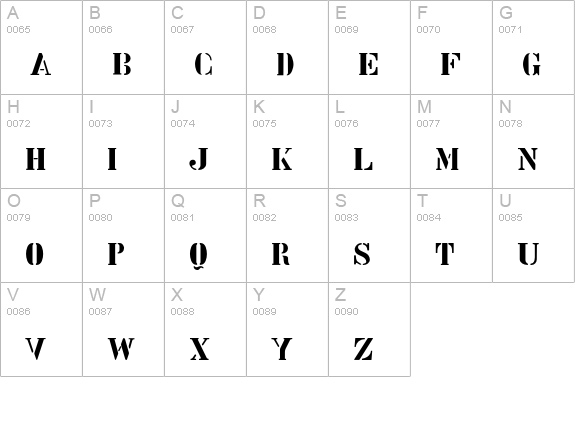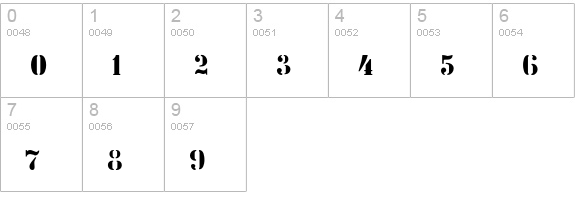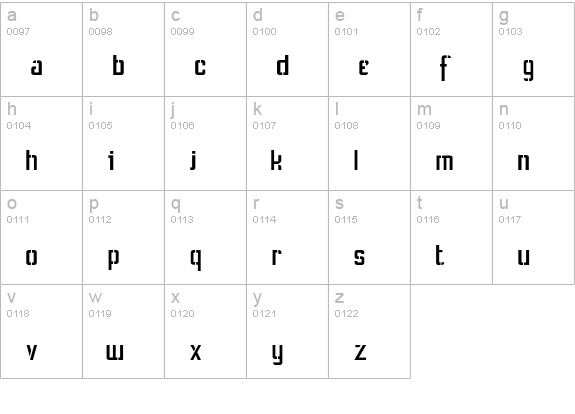
Stencil Intellecta Limited Set Font Details
The Stencil Intellecta Limited Set font is a unique and eye-catching typeface that is sure to make a statement in any design project. Its bold and striking stenciled design gives it a modern and edgy feel, perfect for adding a touch of contemporary sophistication to your work. This font is not only visually appealing, but also incredibly versatile. It can be used in a wide range of design applications, from logos and branding to posters and headlines. Its clean and crisp lines make it highly readable, even at smaller sizes, ensuring that your message will always be conveyed with clarity and impact. What makes the Stencil Intellecta Limited Set font even more appealing is that it is freely available to download at FontsMarket.com. This means that you can easily access this fantastic font without any hassle or cost. Whether you are a professional designer or a hobbyist, this font is a valuable addition to your collection. With its sleek and modern design, the Stencil Intellecta Limited Set font is a true standout in the world of typography. Its bold and unique style will instantly grab the attention of your audience and make your designs unforgettable. So why wait? Download the Stencil Intellecta Limited Set font from FontsMarket.com today and take your designs to the next level.